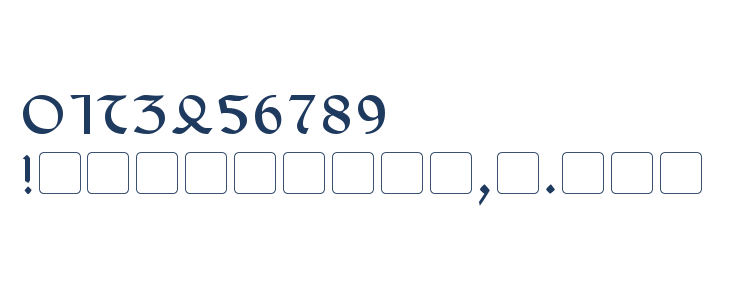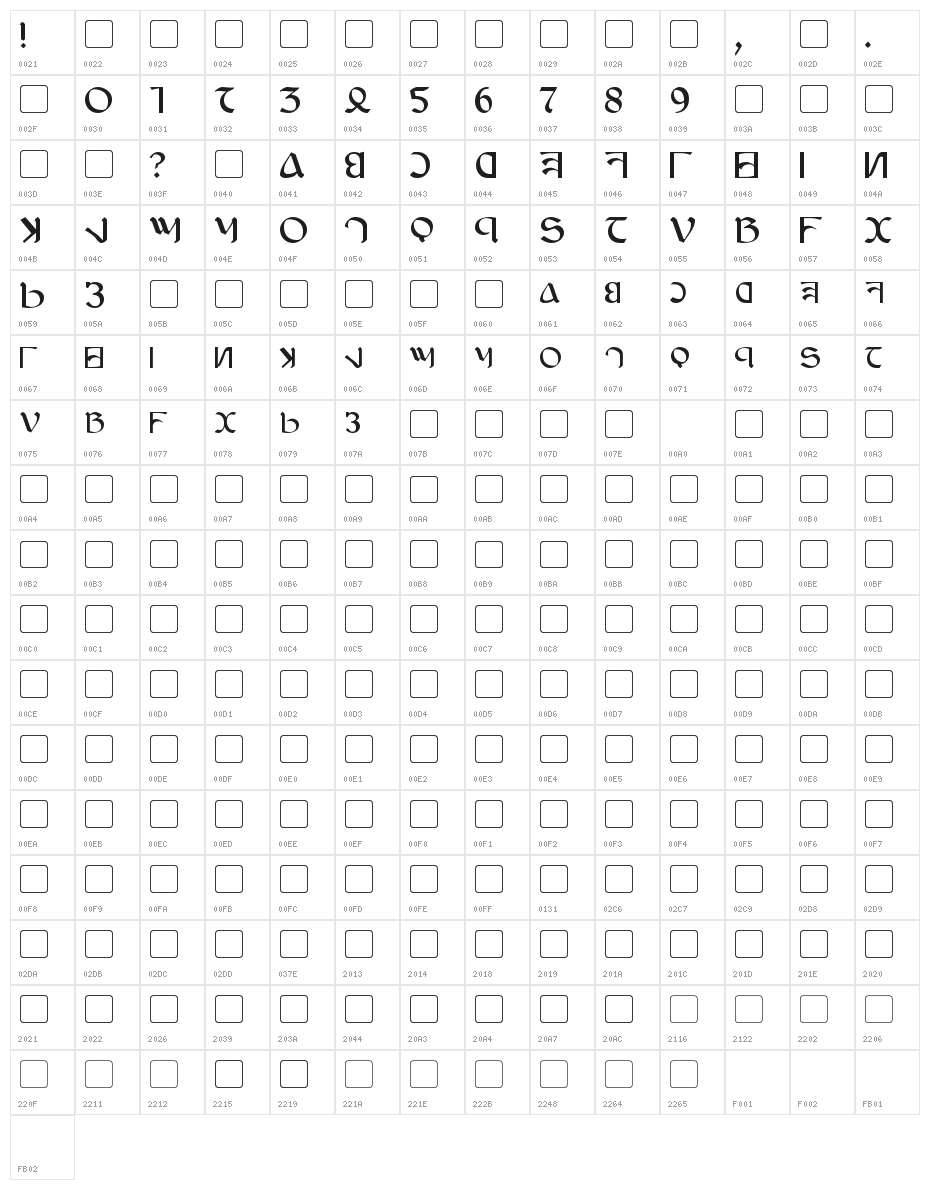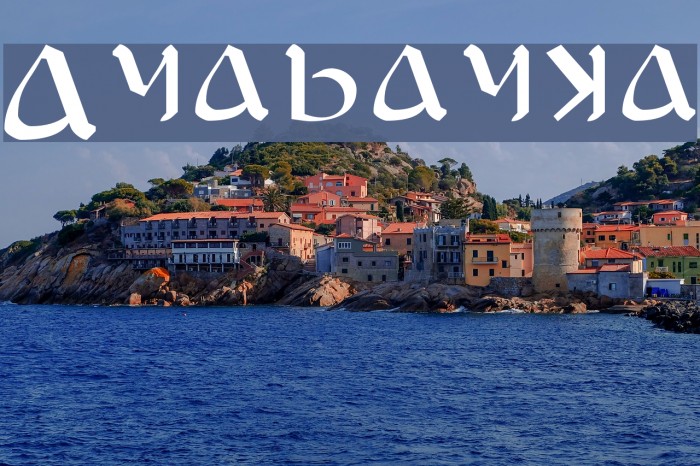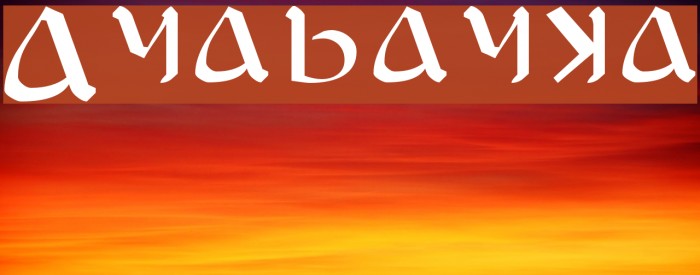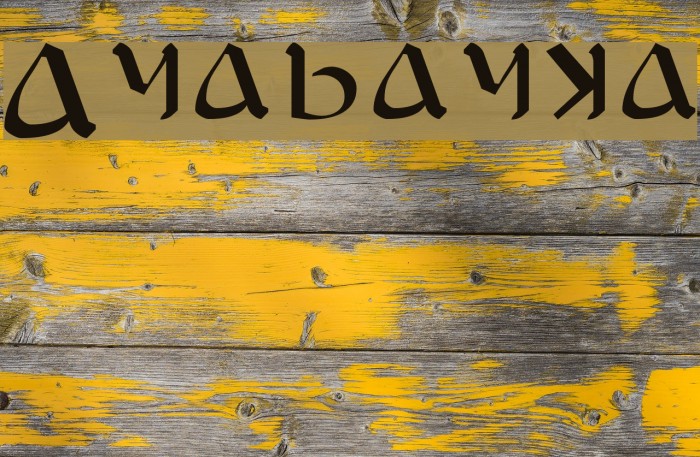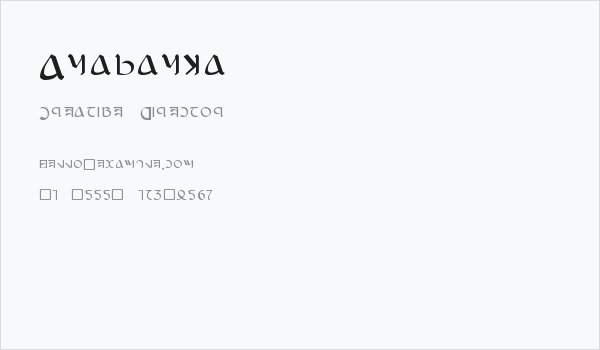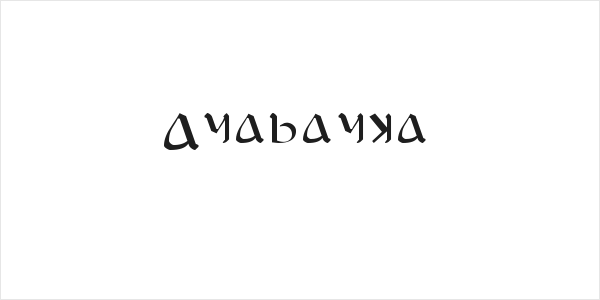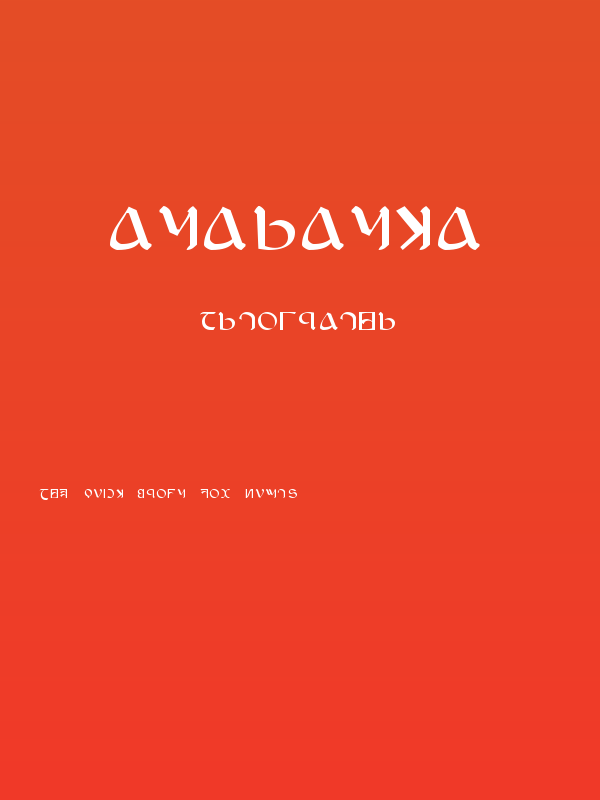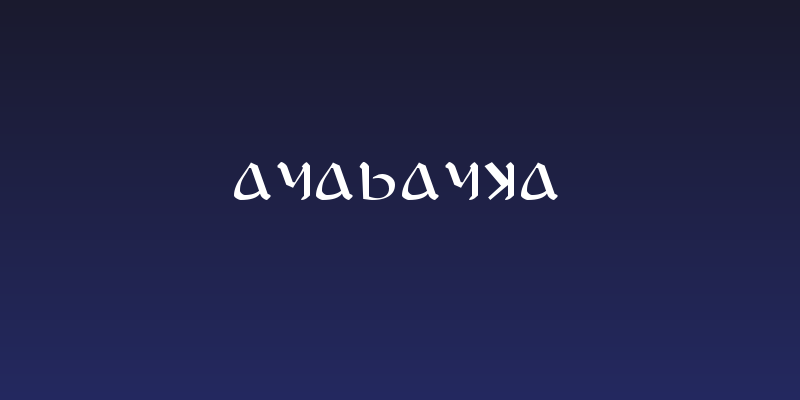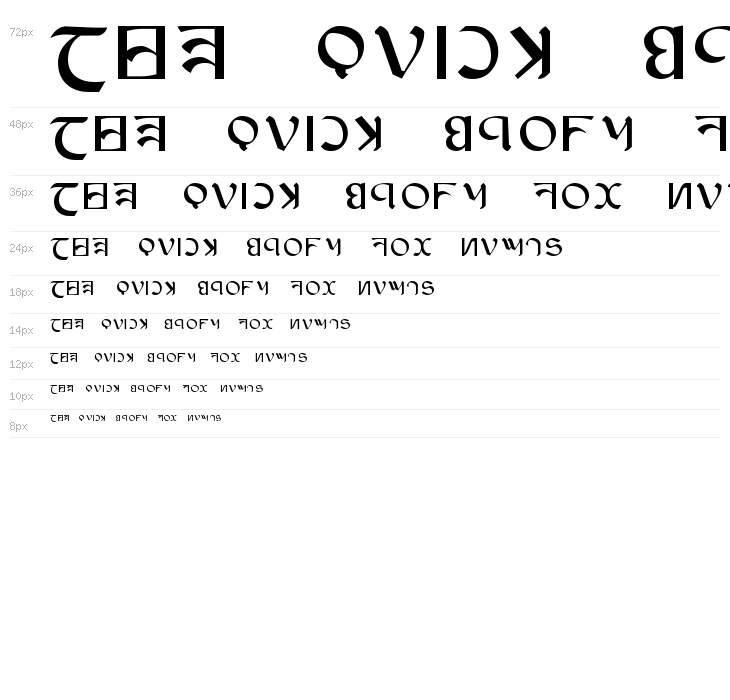
Anayanka Font
Anayanka Description
This font features a unique and artistic design with a blend of geometric and calligraphic elements. The uppercase letters exhibit a bold and structured appearance, with sharp angles and distinct curves that create a dynamic visual impact. The lowercase letters maintain a consistent style, offering a harmonious balance between readability and decorative flair. The numerals are crafted with similar attention to detail, ensuring they complement the overall aesthetic. Special characters are included, adding versatility to the font's application. This typeface is ideal for creative projects that require a touch of elegance and modernity.
| Use Case | Logos, Headlines, Posters |
| Proposed Projects | Ideal for branding, logo design, posters, and artistic projects that require a distinctive and modern look. |